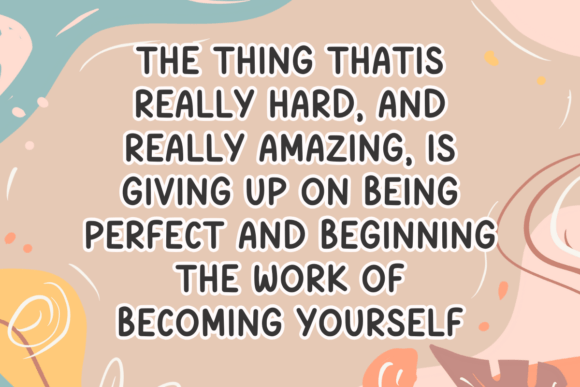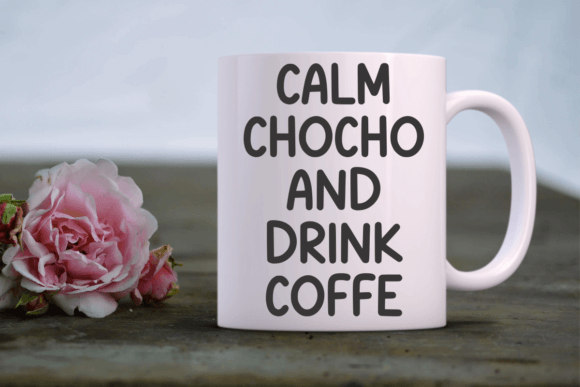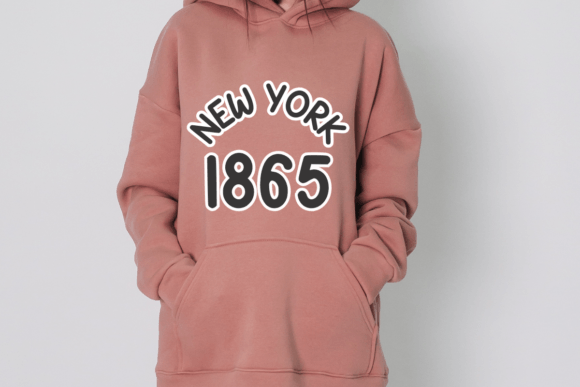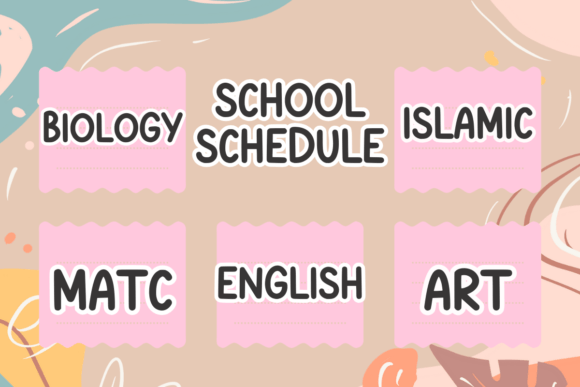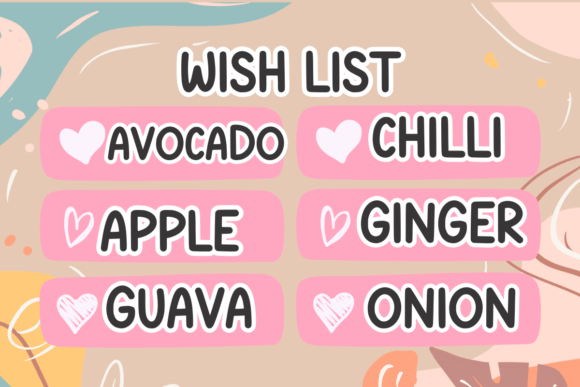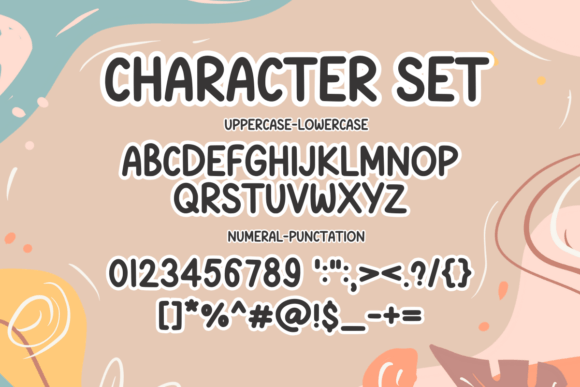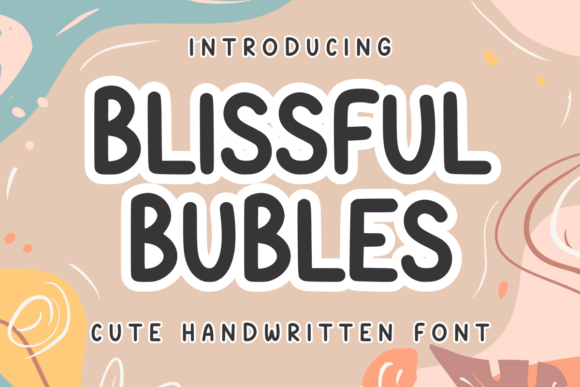
Introducing Blissful Bubles Font: The Ultimate Addition to Your Typography Collection
Are you tired of using the same old fonts in your designs? Look no further! Blissful Bubles Font is here to add a touch of whimsy and fun to your creations. This adorable handwritten font is perfect for designers, crafters, and anyone looking to add a personal touch to their work.
The Charm of Blissful Bubles Font
Blissful Bubles Font is a cute and adorable handwritten font that exudes a sense of playfulness and joy. Its natural strokes and touches give it a unique and organic feel that’s sure to capture the attention of your audience. Whether you’re working on a project for a client or creating something for personal use, this font is sure to bring a smile to your face.
What Makes Blissful Bubles Font So Special?
So, what sets Blissful Bubles Font apart from other fonts out there? Here are just a few reasons why this font is a must-have for any designer or crafter:
- Cute and Fun Style: Blissful Bubles Font has a distinctly playful and fun style that’s perfect for projects that require a lighthearted touch.
- Natural Strokes and Touches: The font’s natural strokes and touches give it a unique and organic feel that’s sure to add a personal touch to your creations.
- Versatility: Whether you’re working on a project for a client or creating something for personal use, Blissful Bubles Font is versatile enough to fit any topic or theme.
How to Use Blissful Bubles Font in Your Designs
Blissful Bubles Font is incredibly easy to use and can be incorporated into a wide range of design projects, including:
- Digital Art: Add a touch of whimsy to your digital art with Blissful Bubles Font. Use it to create fun and playful text overlays, or as a decorative element in your compositions.
- Branding and Packaging: Use Blissful Bubles Font to add a personal touch to your branding and packaging designs. It’s perfect for creating custom logos, labels, and more.
- Stationery and Invitations: Add a touch of elegance and sophistication to your stationery and invitations with Blissful Bubles Font. It’s perfect for creating custom greeting cards, invitations, and more.
Why Designers and Crafters Love Blissful Bubles Font
Blissful Bubles Font has quickly become a favorite among designers and crafters, and for good reason. Here are just a few reasons why:
- Easy to Read: Despite its playful and whimsical nature, Blissful Bubles Font is incredibly easy to read, making it perfect for use in a wide range of design projects.
- Highly Versatile: Blissful Bubles Font can be used in a wide range of design projects, from digital art to branding and packaging.
- Unique and Eye-Catching: Blissful Bubles Font is sure to add a unique and eye-catching touch to your designs, setting them apart from the competition.
Key Features of Blissful Bubles Font
- Handwritten font with natural strokes and touches
- Cute and adorable style
- Highly versatile and easy to read
- Perfect for digital art, branding and packaging, stationery and invitations, and more